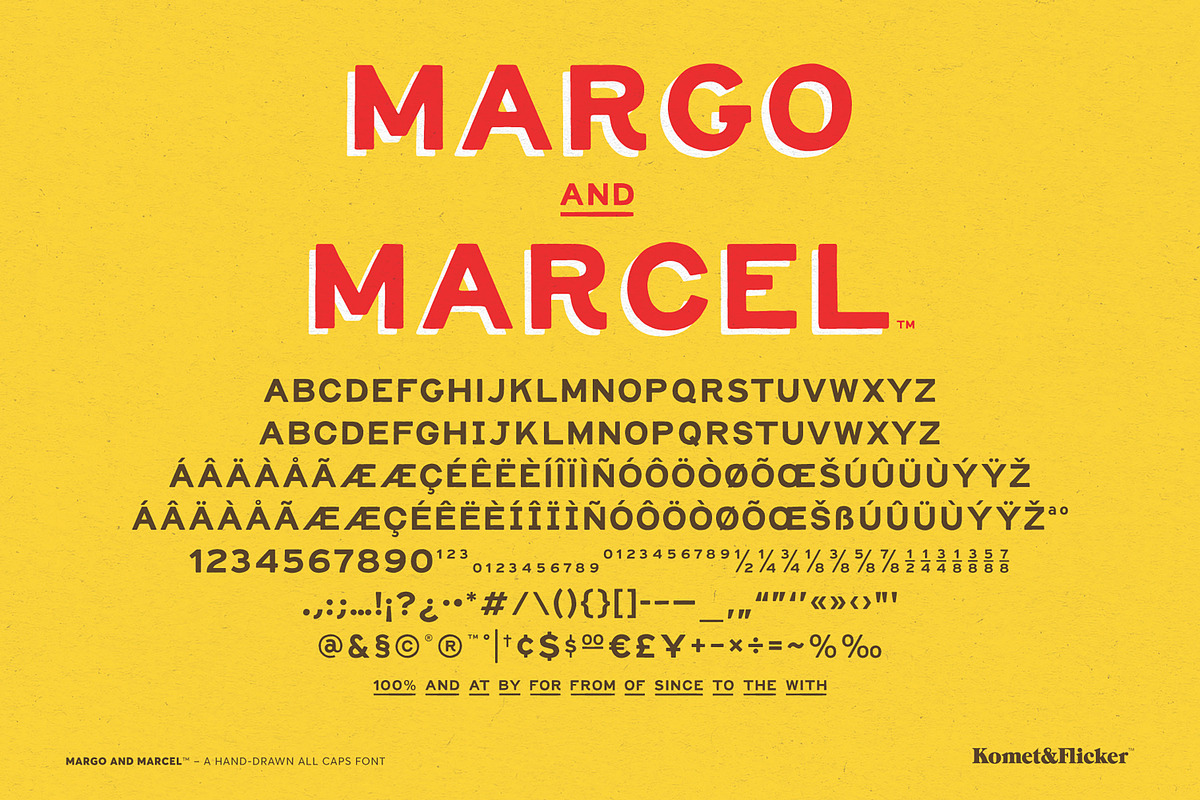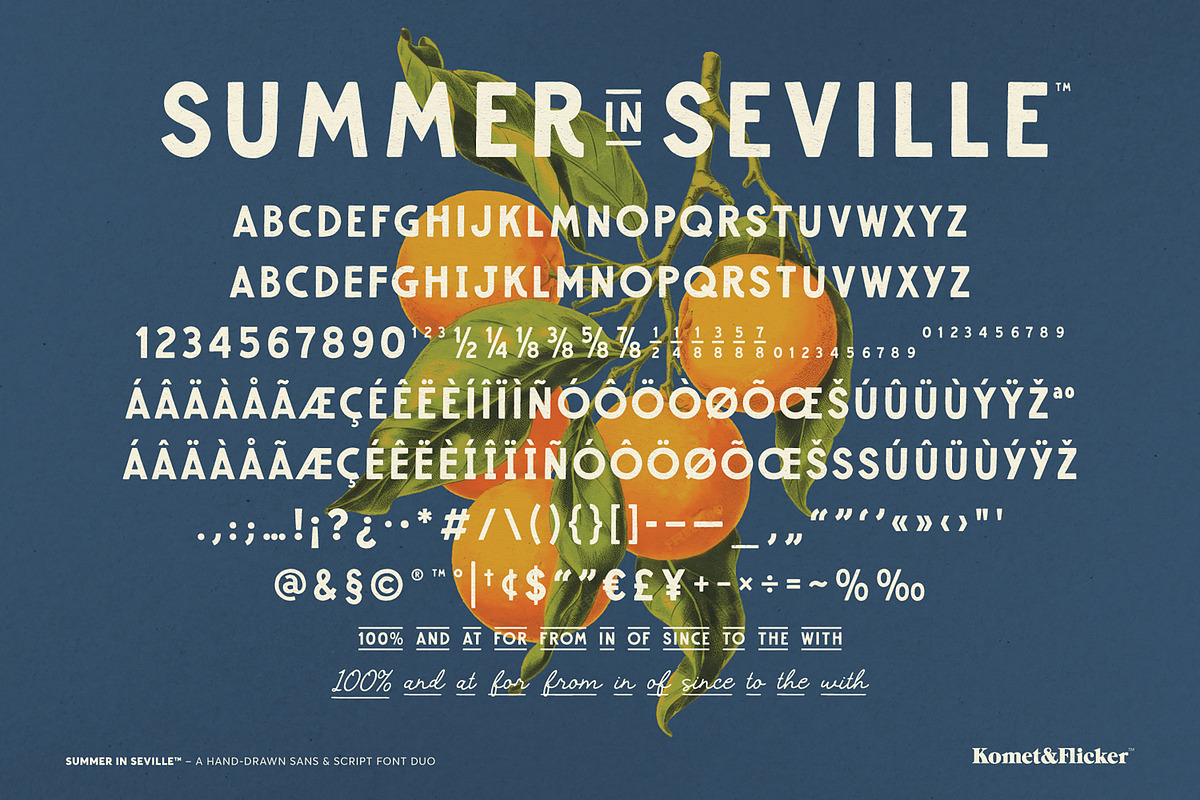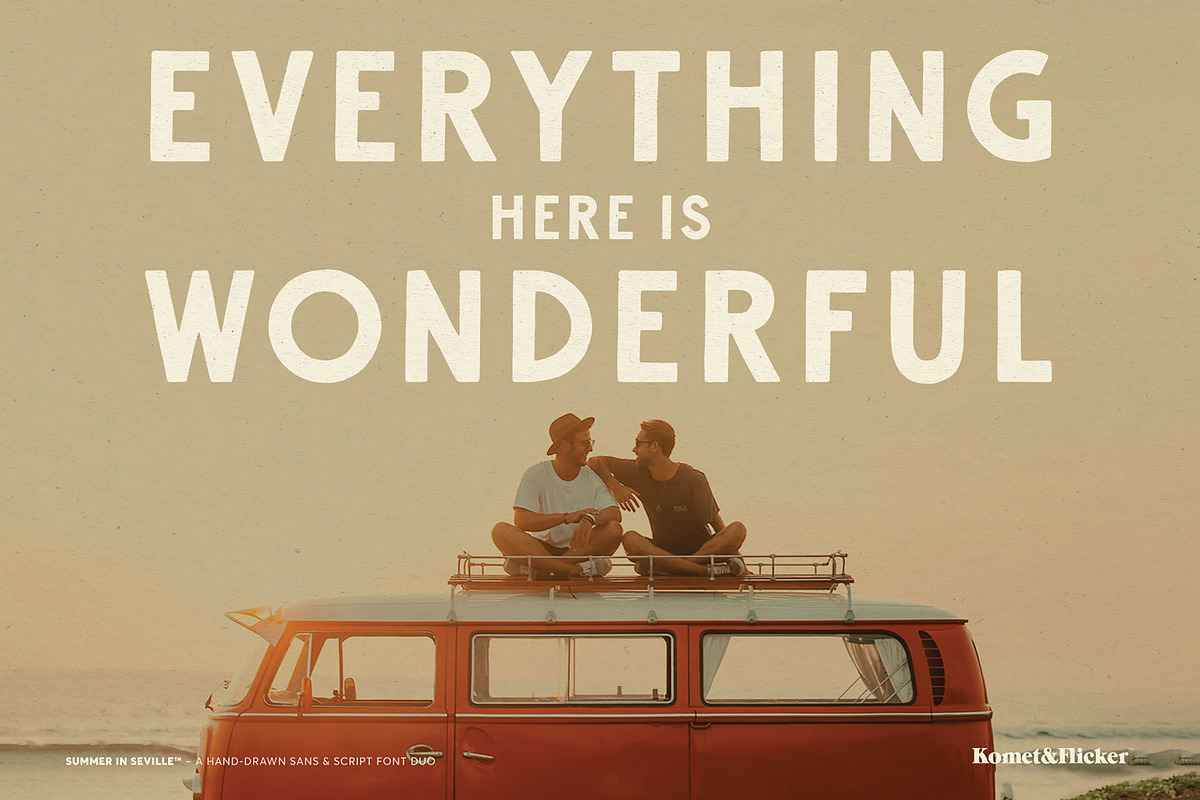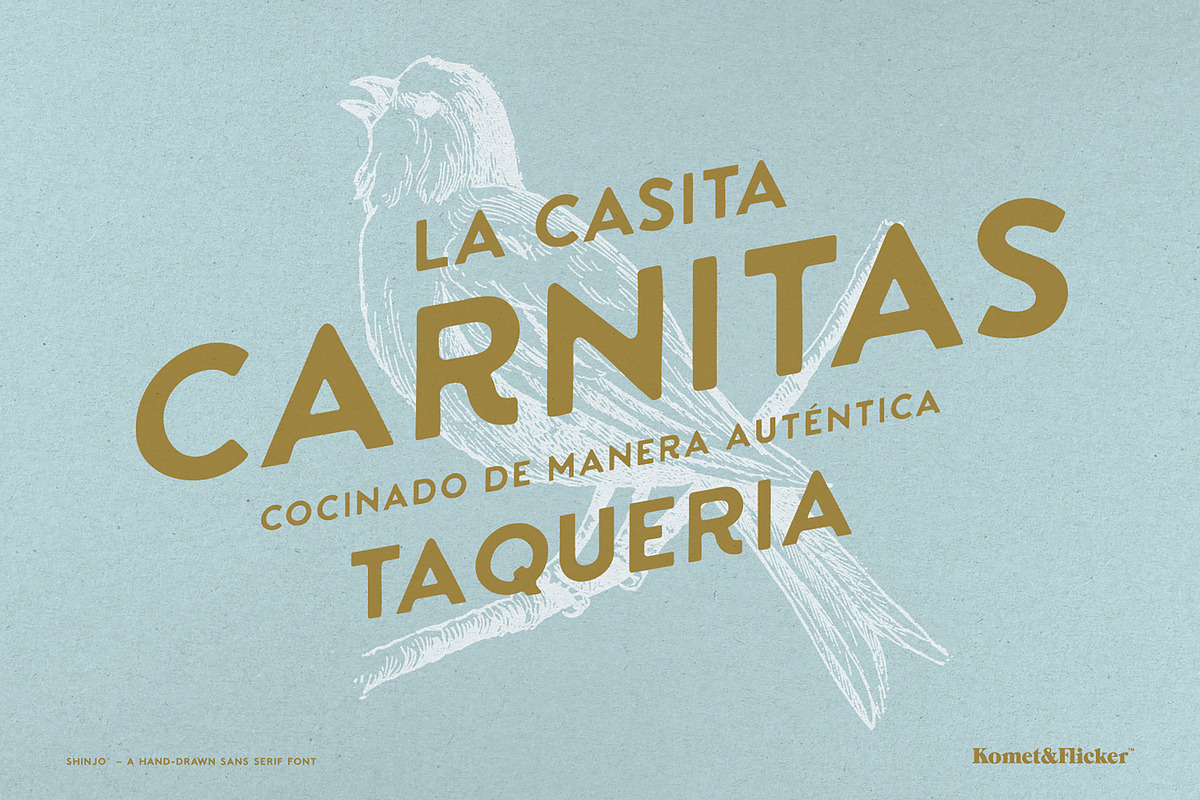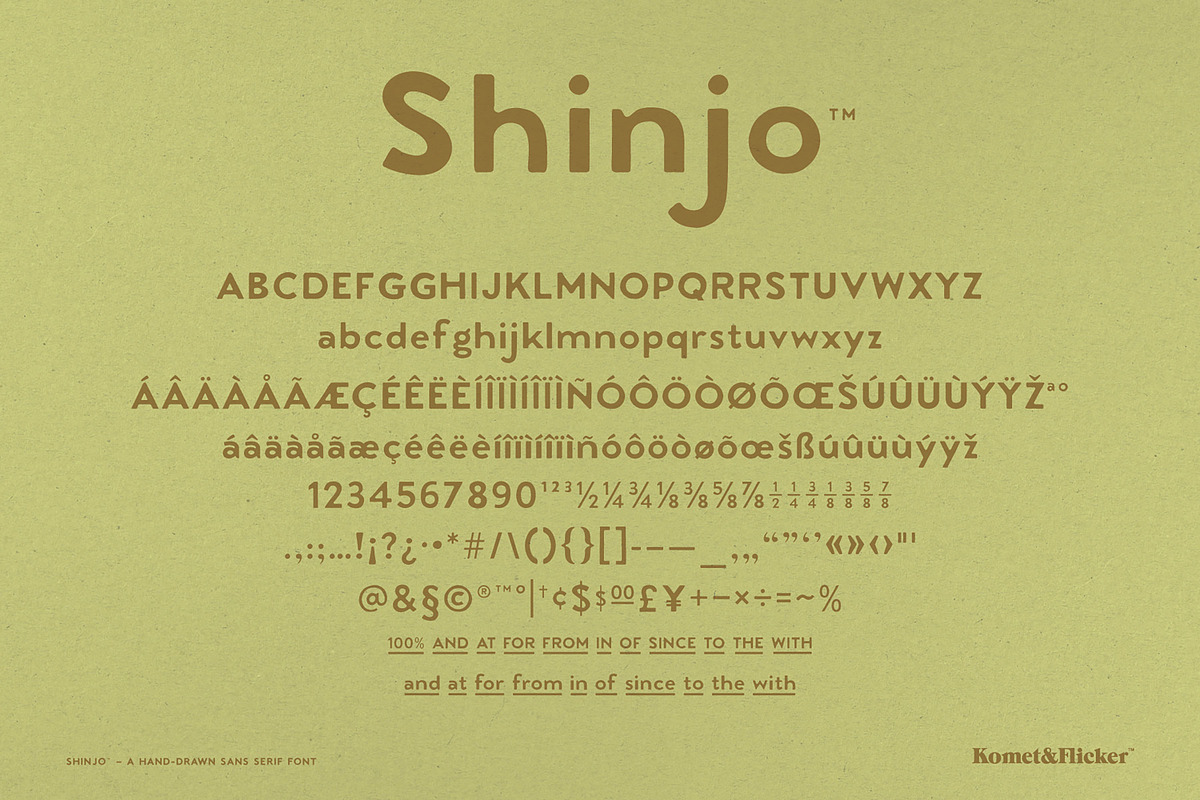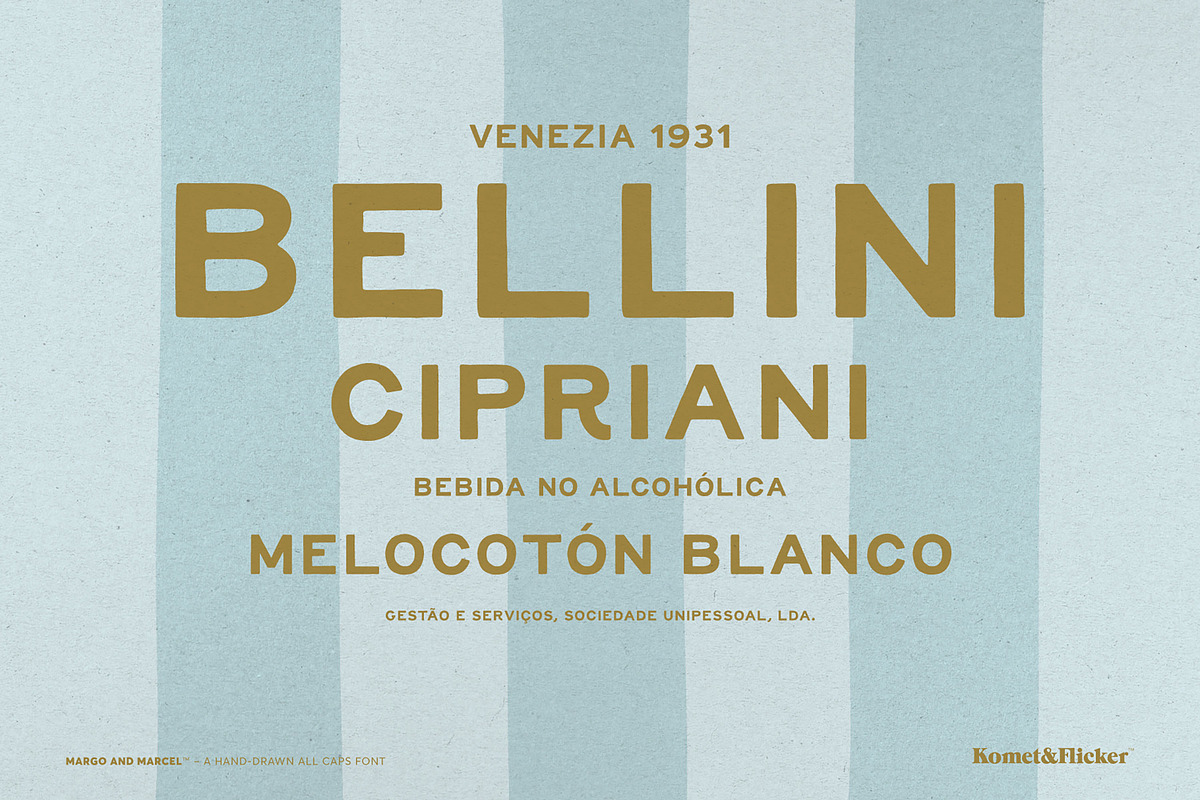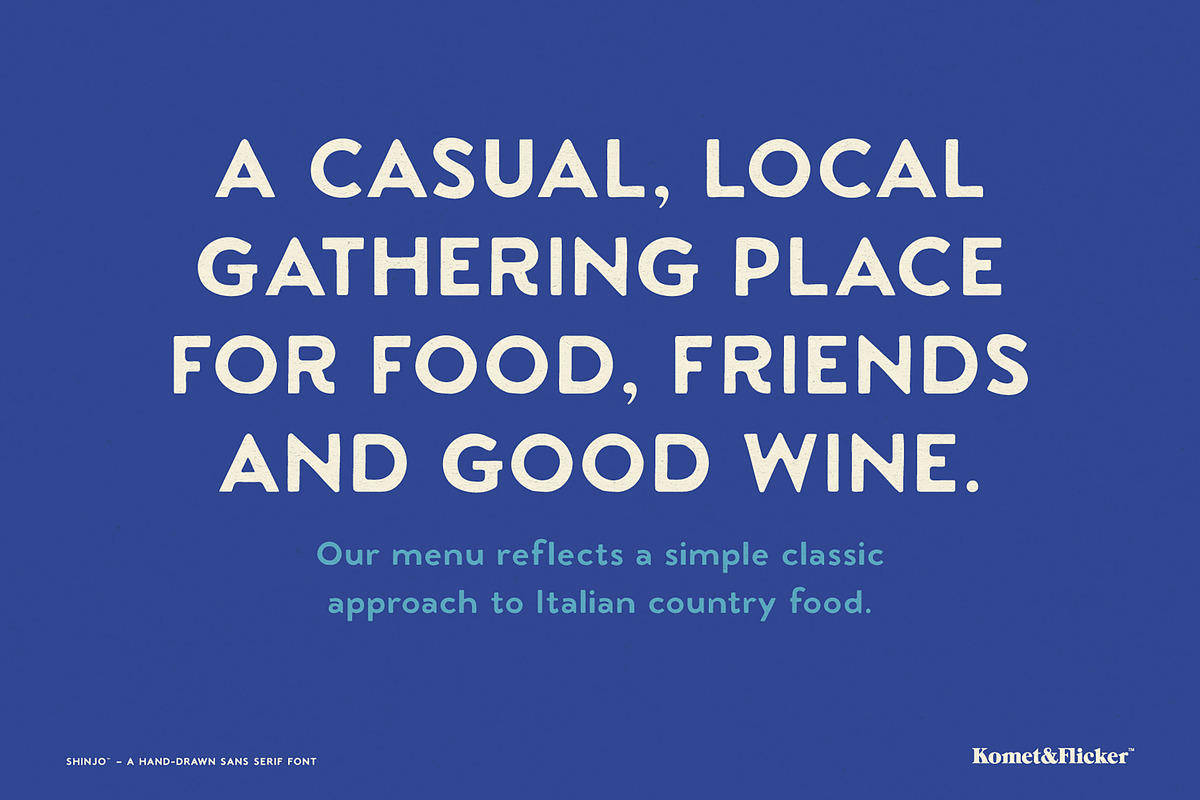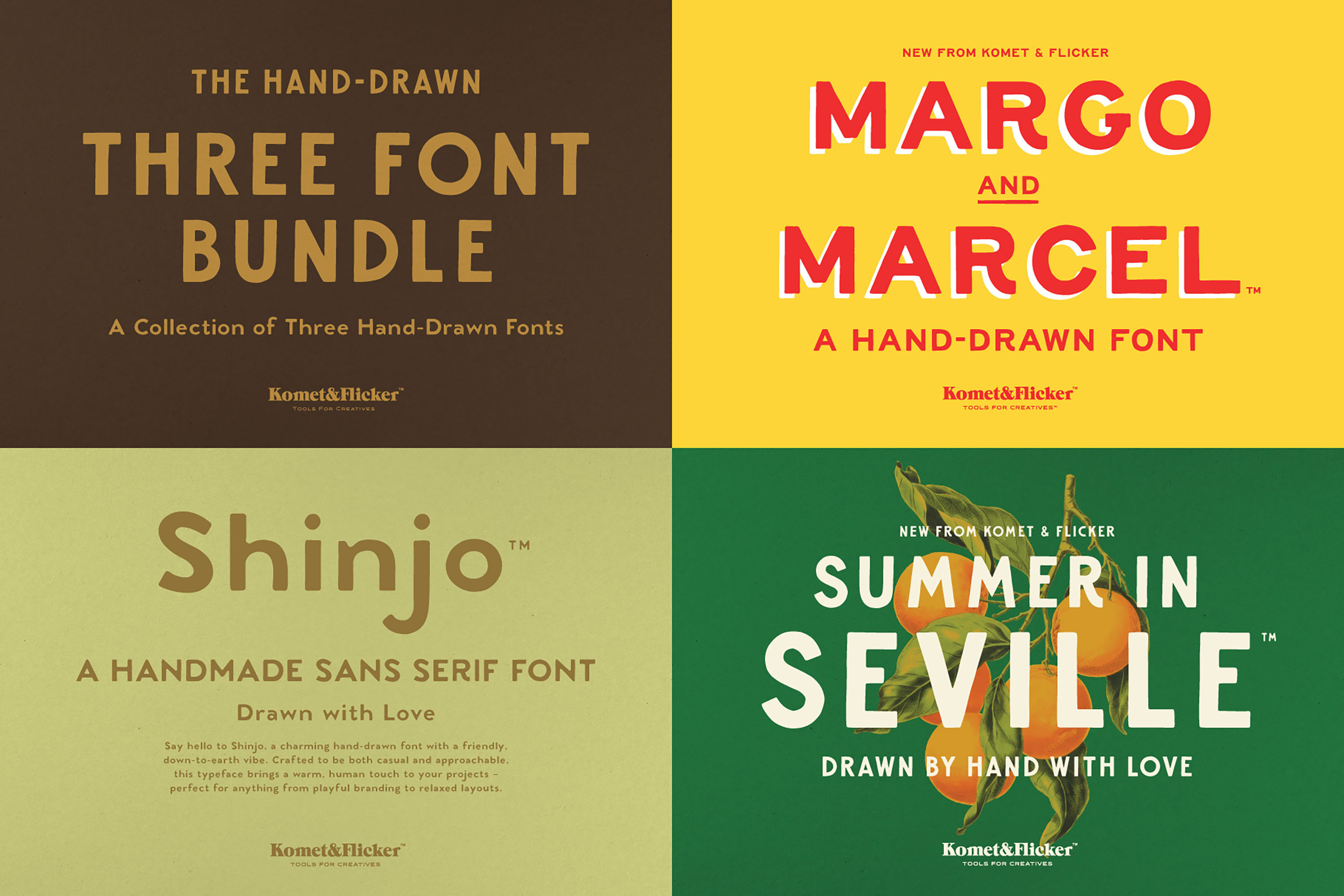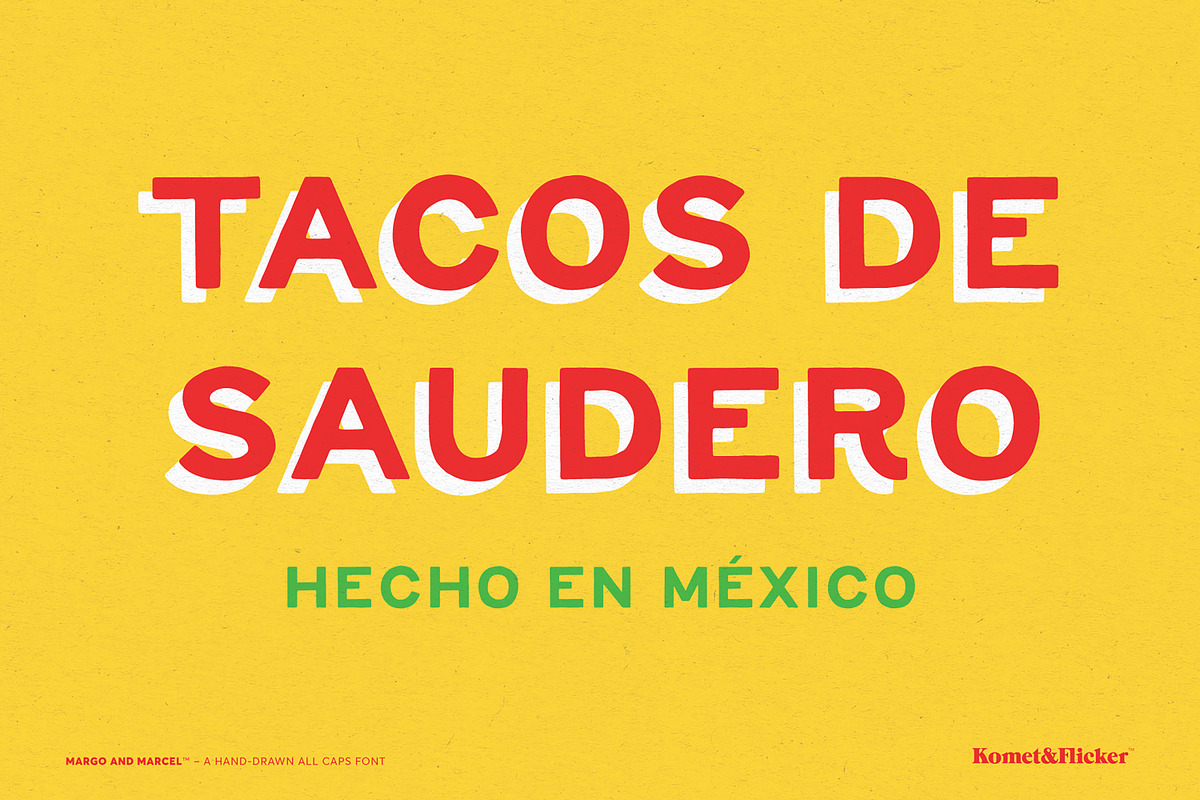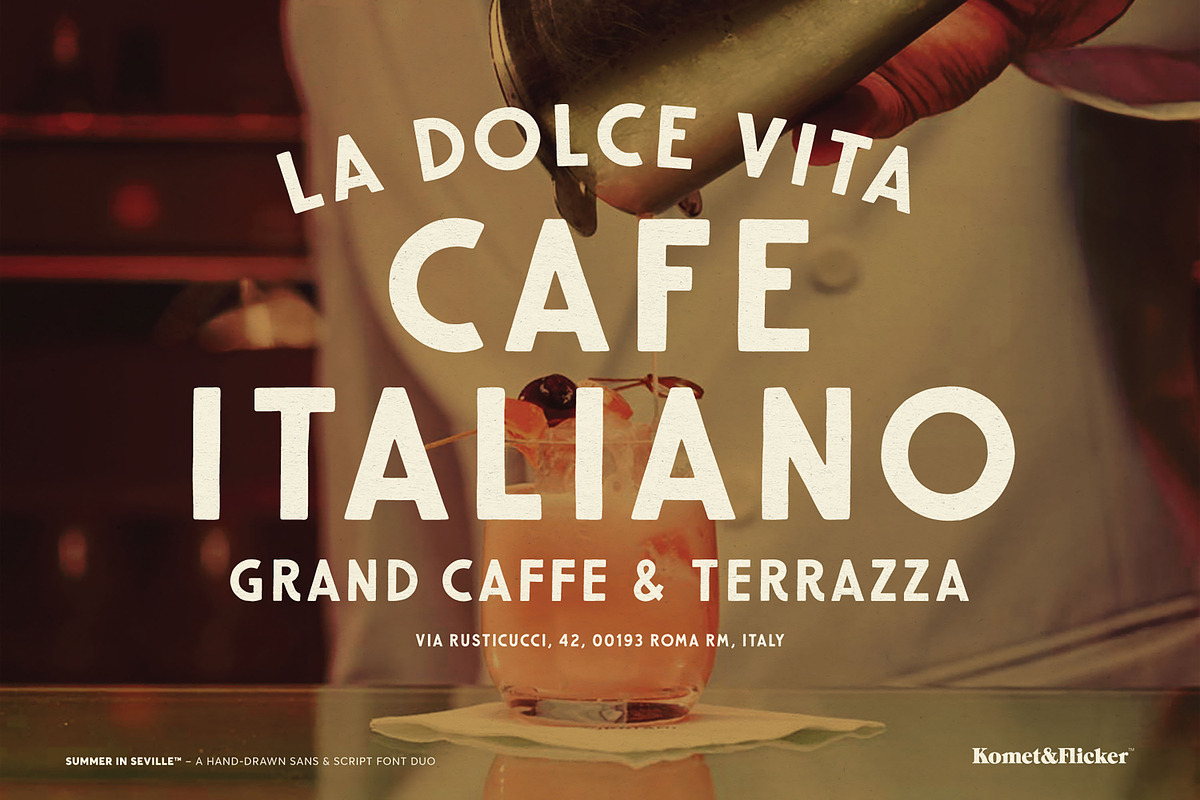
The Hand-drawn Three Font Bundle
Bring warmth and character to your designs with The Hand-drawn Three Font Bundle – a charming trio of hand-drawn sans serif fonts crafted to add a personal, organic touch to any project. Each font in the collection is thoughtfully designed to balance playfulness and readability, making them perfect for everything from branding and packaging to invitations and social media graphics.